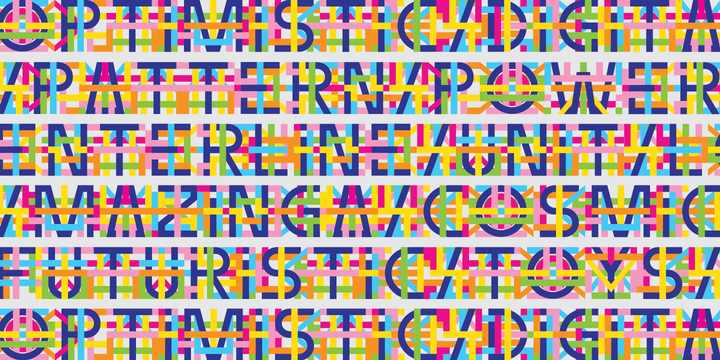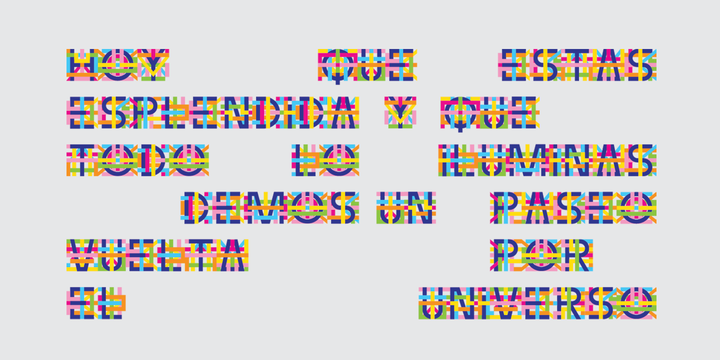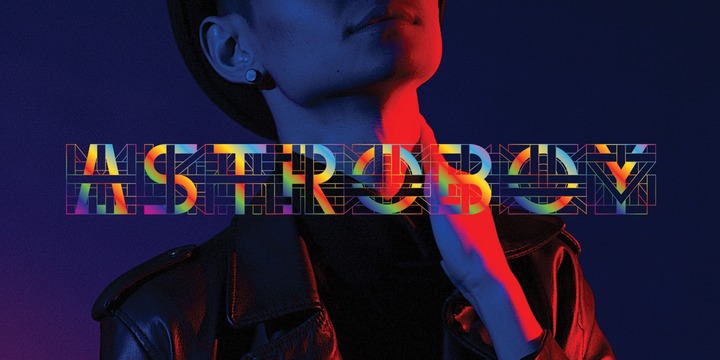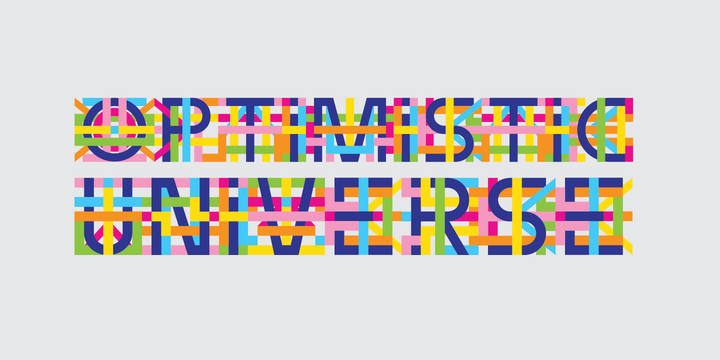
A collaboration between SAEL (artist) and Ale Paul (type designer) for Sudtipos as part of the first project at the foundry between illustration and type design to create a collection of colorfonts.
More About the font: "Enterline assumes with authority the visual expression of color fonts.
In its use, the density of Enterline becomes liquid. In his narrative, it becomes a pattern of infinite variables and nuances. In its hybridity, it evolves as hyper-typography. Sael marks its graphical nature (patterned diagonals, colors and shapes) in each letter of Enterline, and achieves a massive editable color font for the mobile first generation.
Robotics and futuristic fandom, explicit japonism, cosmic phenomenology, tech toys, pixel art and the accelerated pulse of the present in communion with codes, scalable vectors and the scope of new technologies, to create a mechanic, multicolored and optimistic big bang.
In Enterline, reconsidered typographic thinking and digital vertigo." Lucas López Package: Enterline comes in a file with a pre-defined color palette. You can always change the colors converting the text to outlines. There is also a super unique Black & White version specially designed to work in any application.